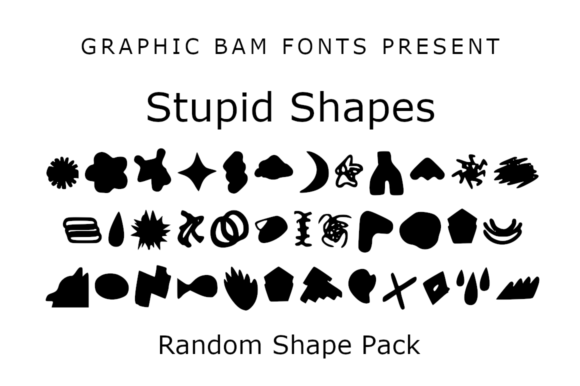
Journey into the whimsical world of Stupid Shapes Font, a dingbats font brimming with character and individuality. Unleash your creativity as you explore a treasure trove of quirky glyphs and symbols, each one a visual masterpiece waiting to adorn your designs, crafts, and projects. With Stupid Shapes Font, the mundane becomes extraordinary, and the ordinary transforms into the captivating.
Immerse yourself in the boundless versatility of Stupid Shapes Font, a font that effortlessly adapts to a myriad of applications. Elevate academic papers with a touch of whimsy, breathe life into presentations with playful visuals, or add a dash of personality to social media posts and digital designs. The possibilities are endless, bound only by the limits of your imagination.
Stupid Shapes Font is more than just a collection of characters; it's an invitation to embark on a creative adventure. Let your imagination run wild as you craft unique and eye-catching designs that leave a lasting impression. Whether you're a seasoned designer or just starting your creative journey, Stupid Shapes Font is your trusty companion, ready to transform your ideas into stunning realities.
Don't settle for ordinary fonts. Embrace the extraordinary with Stupid Shapes Font, a font that sparks creativity, ignites passion, and fuels your imagination. Join the ranks of creative visionaries who have discovered the power of Stupid Shapes Font and unlock a world of endless design possibilities. The time is now, the font is here, and the possibilities are infinite. Embrace the Stupid Shapes Font revolution today!